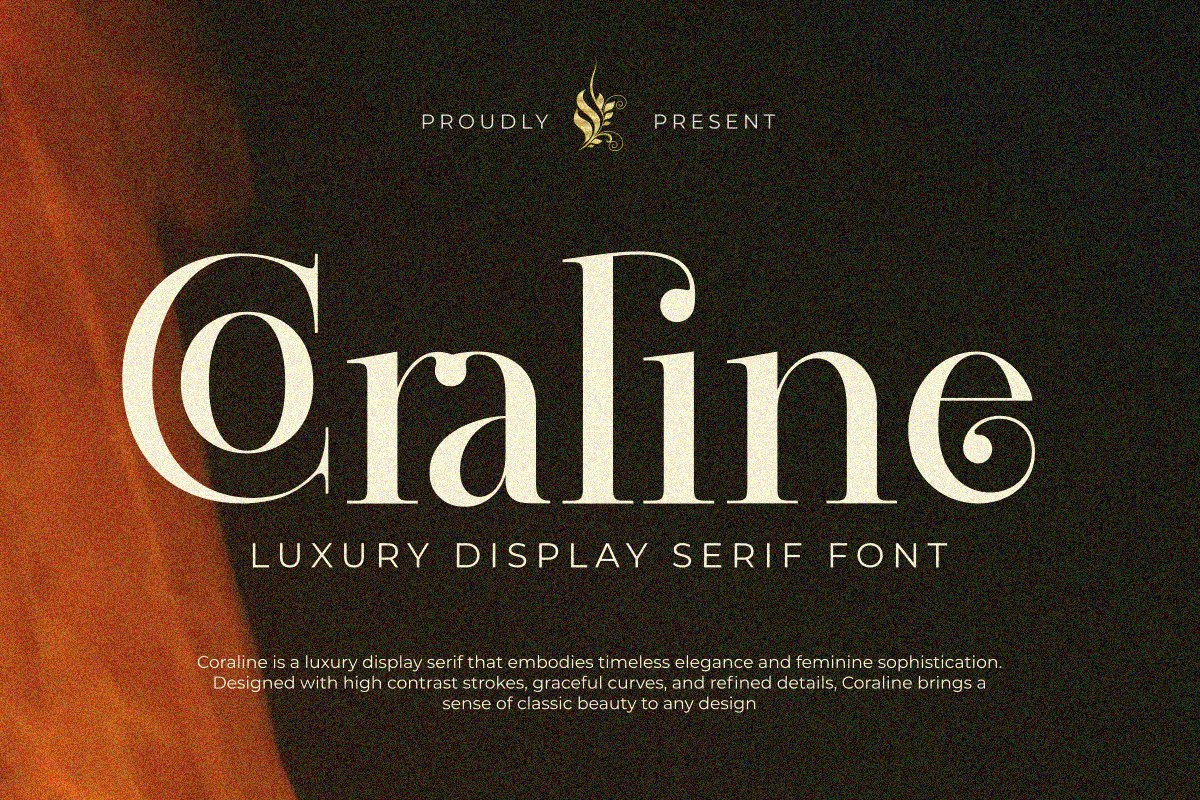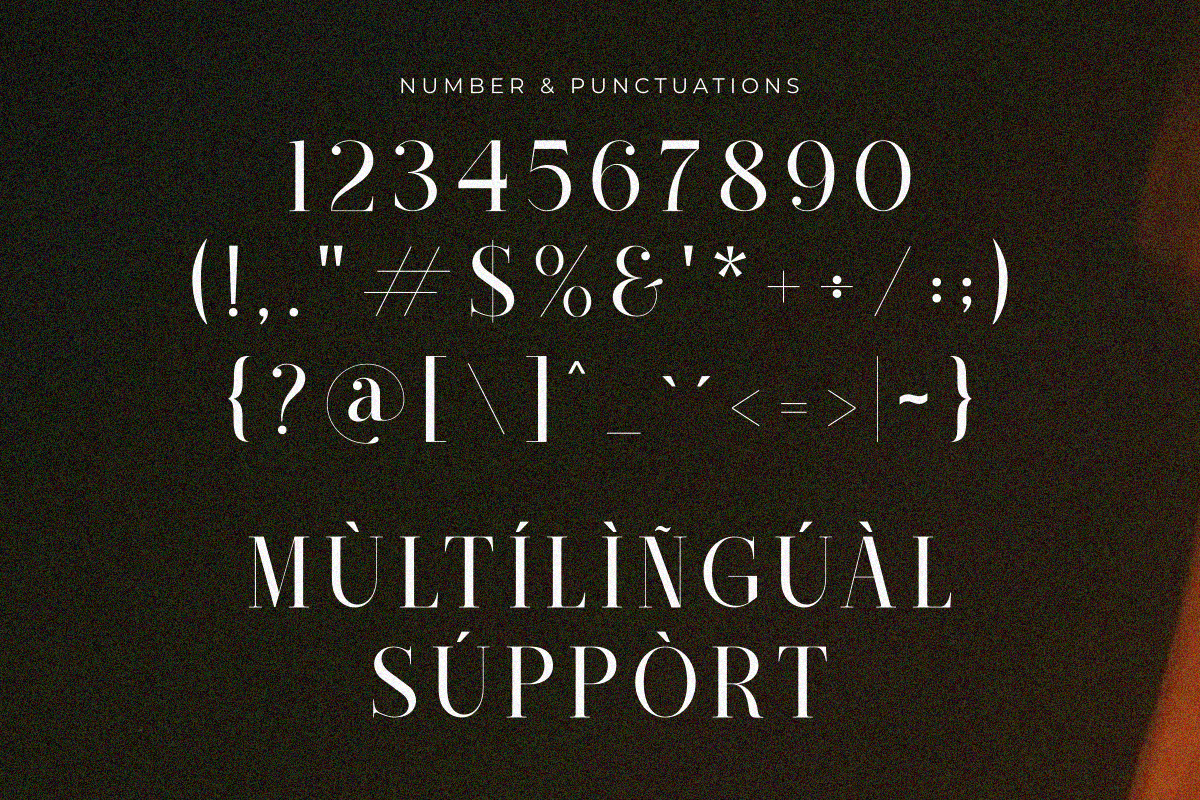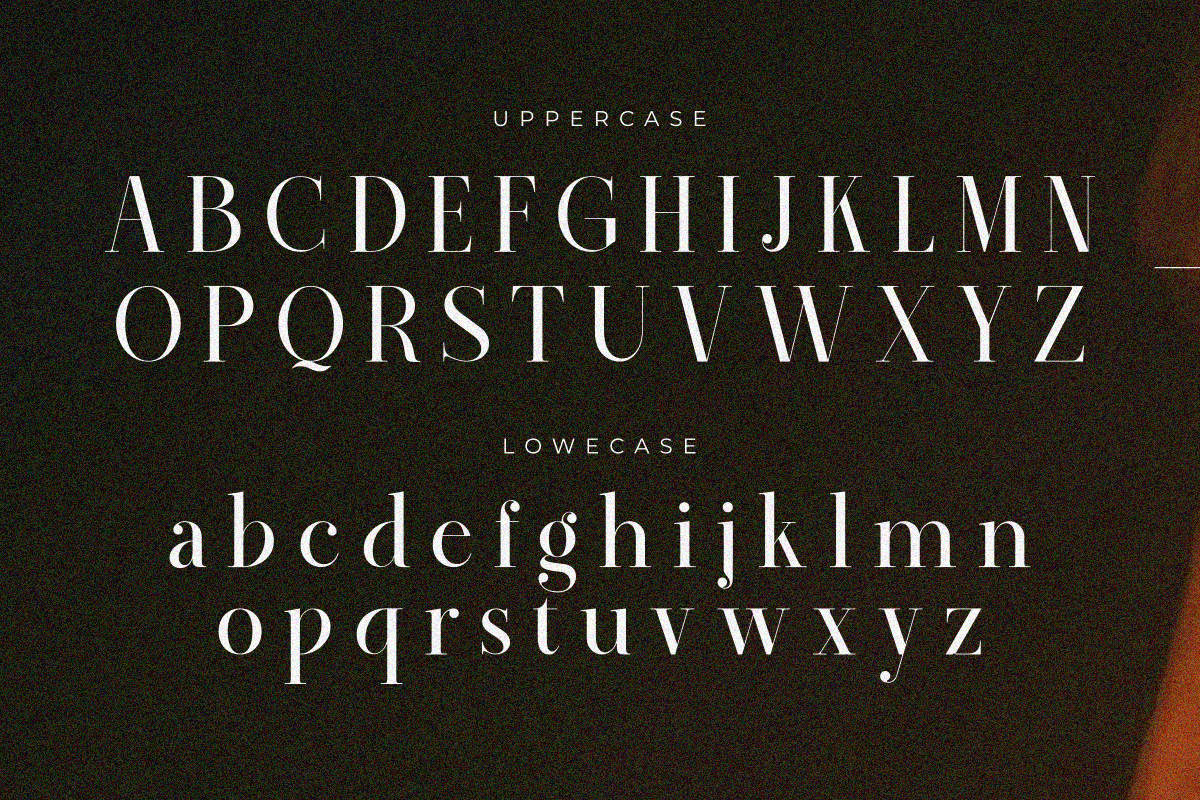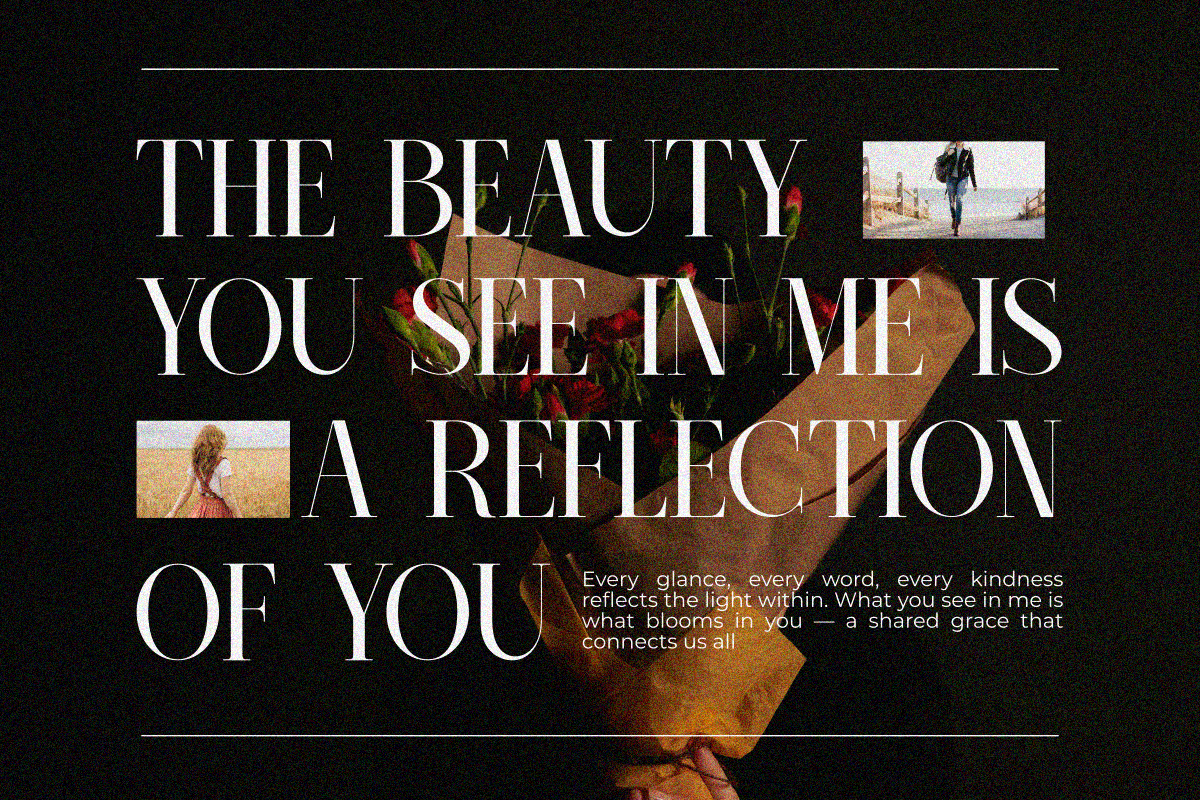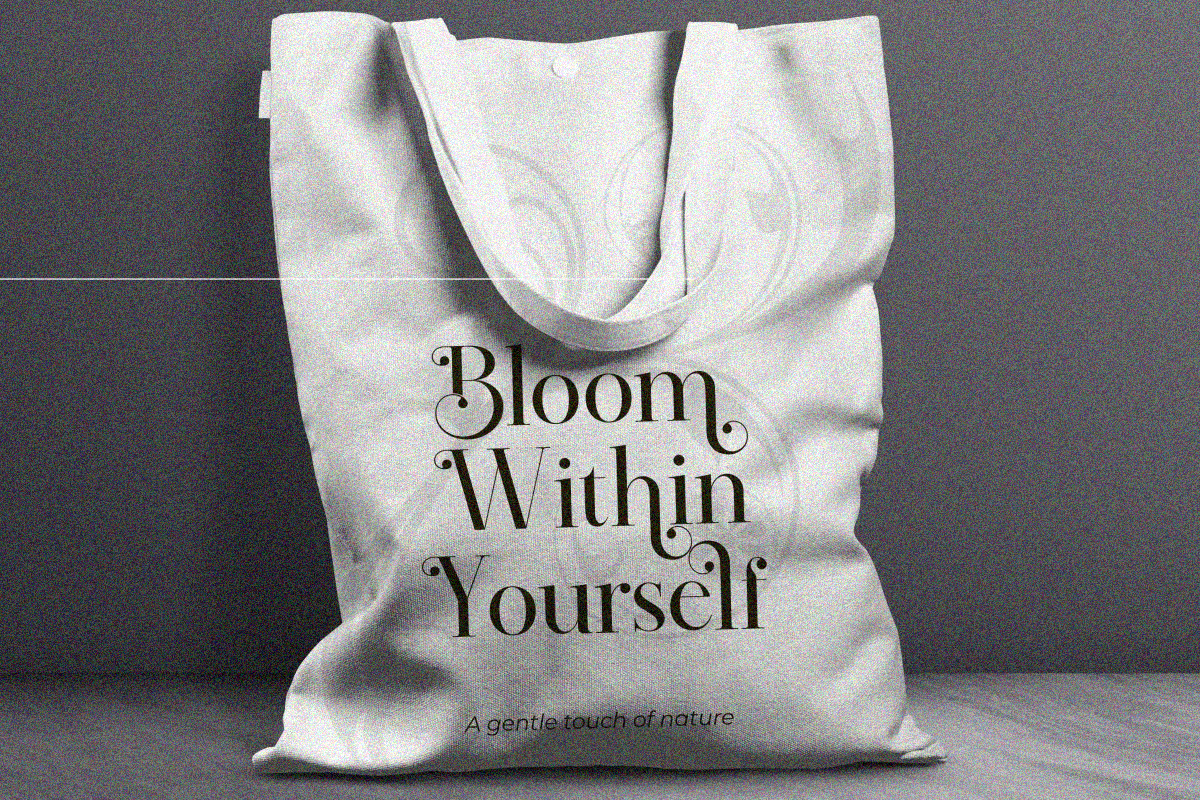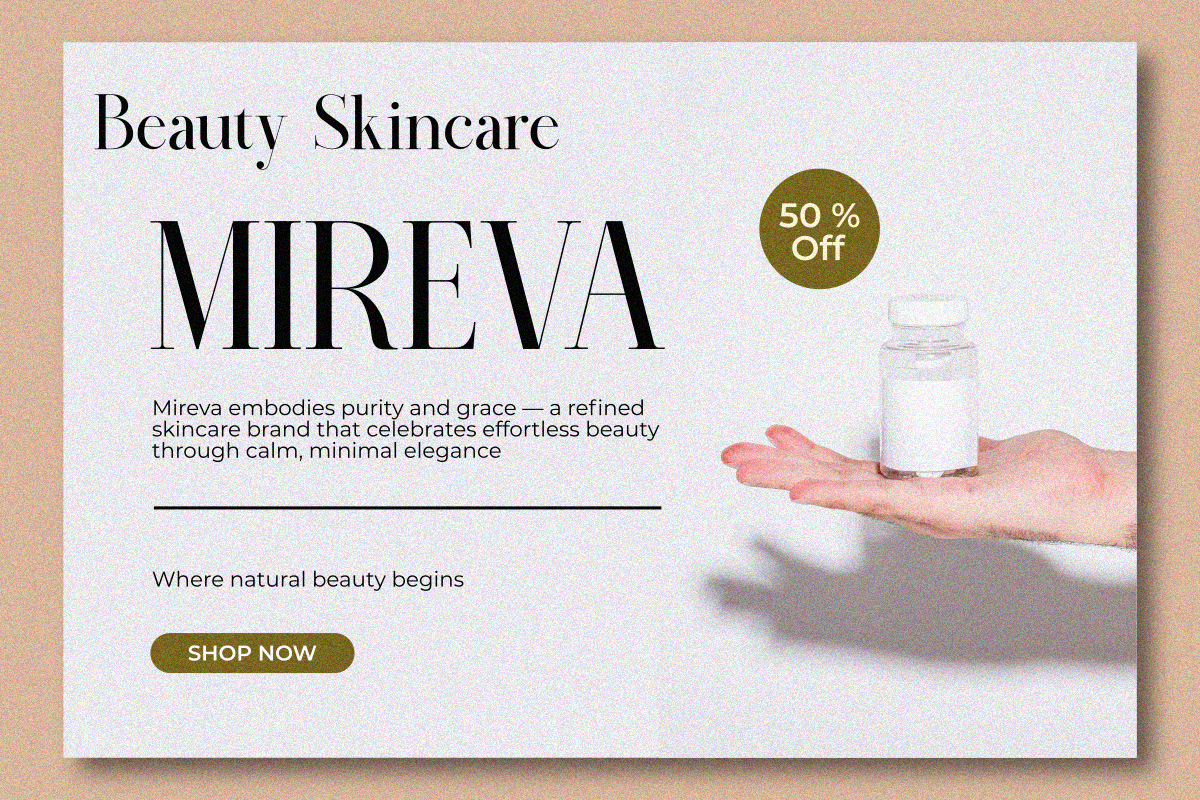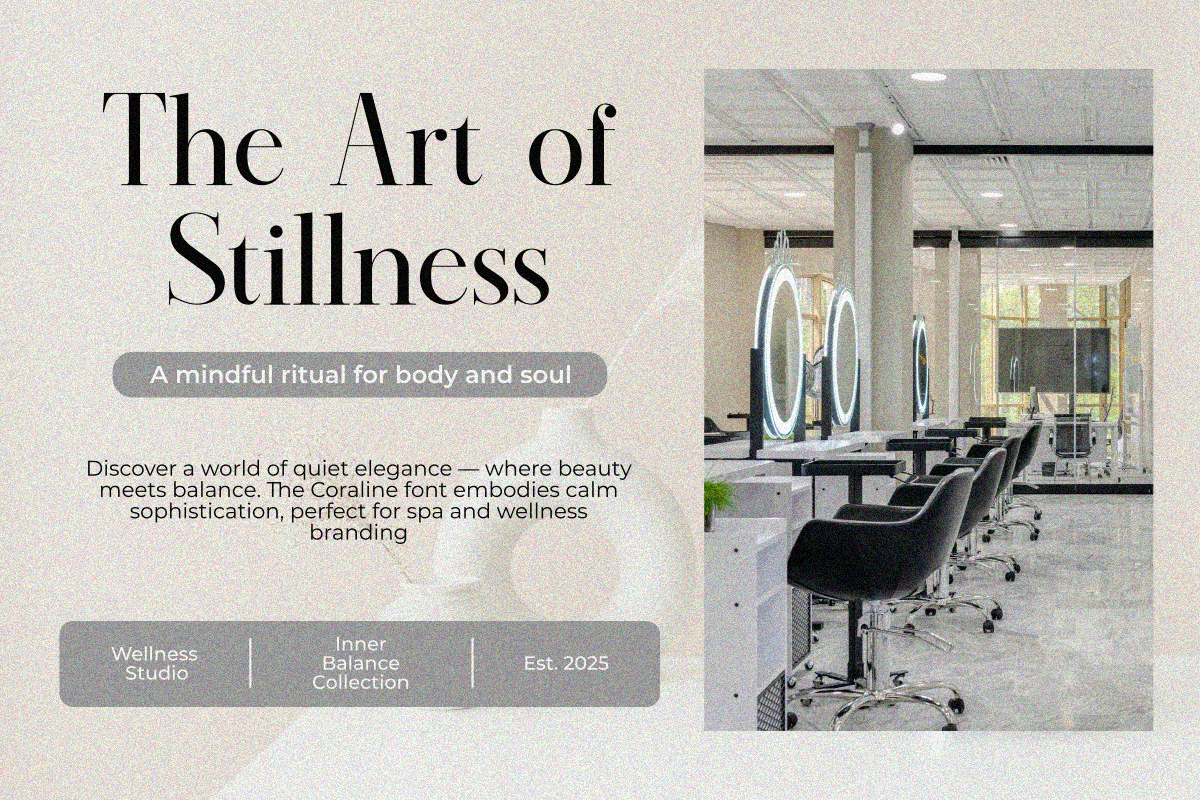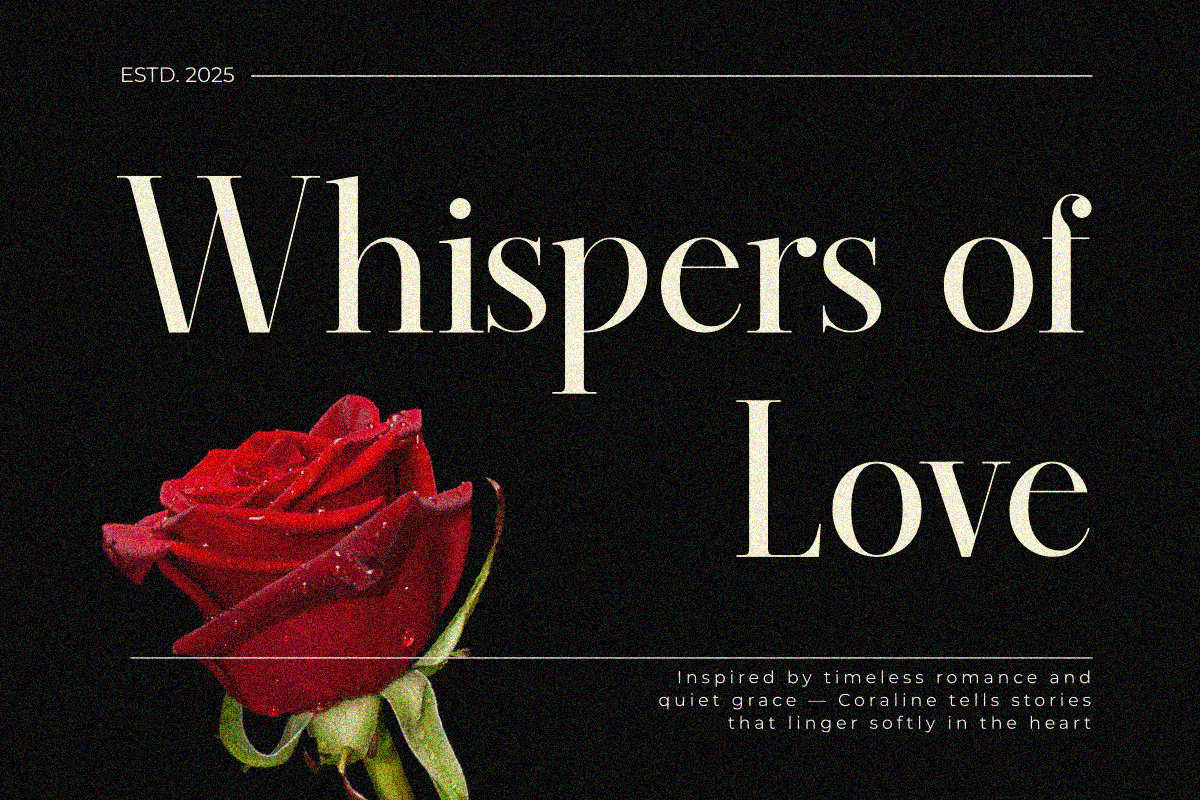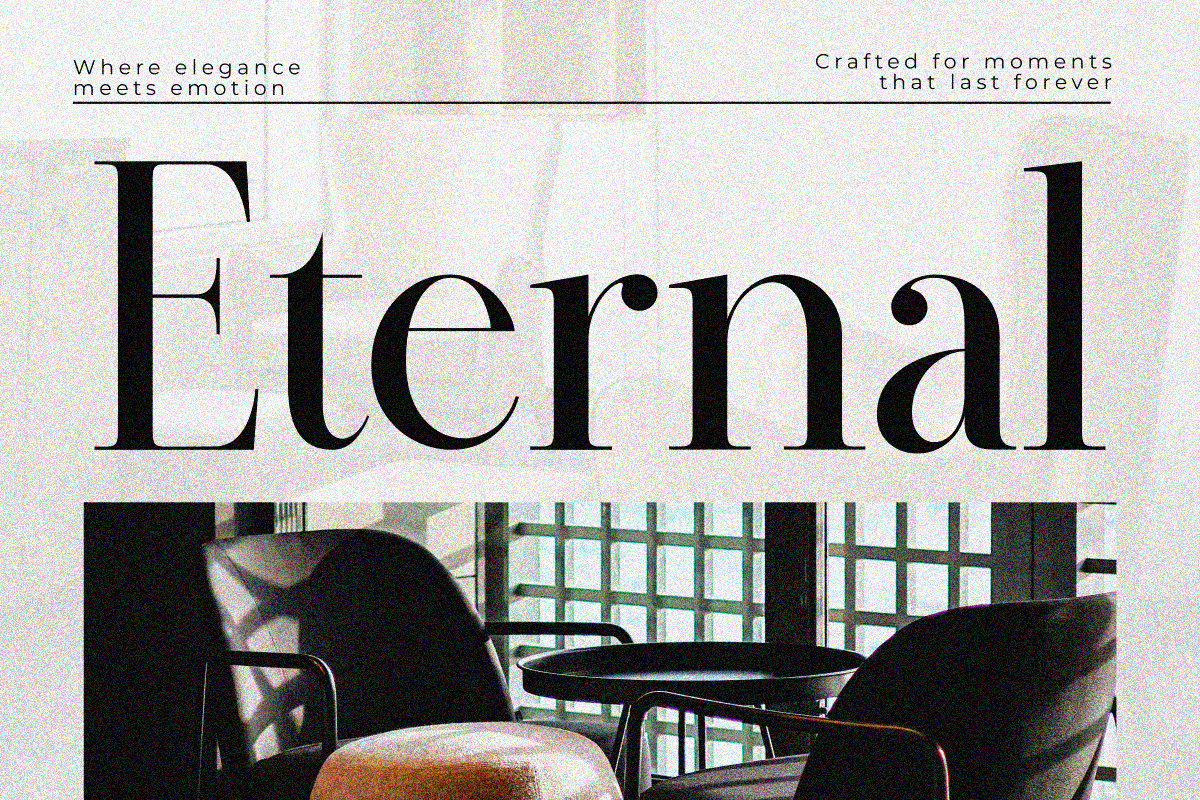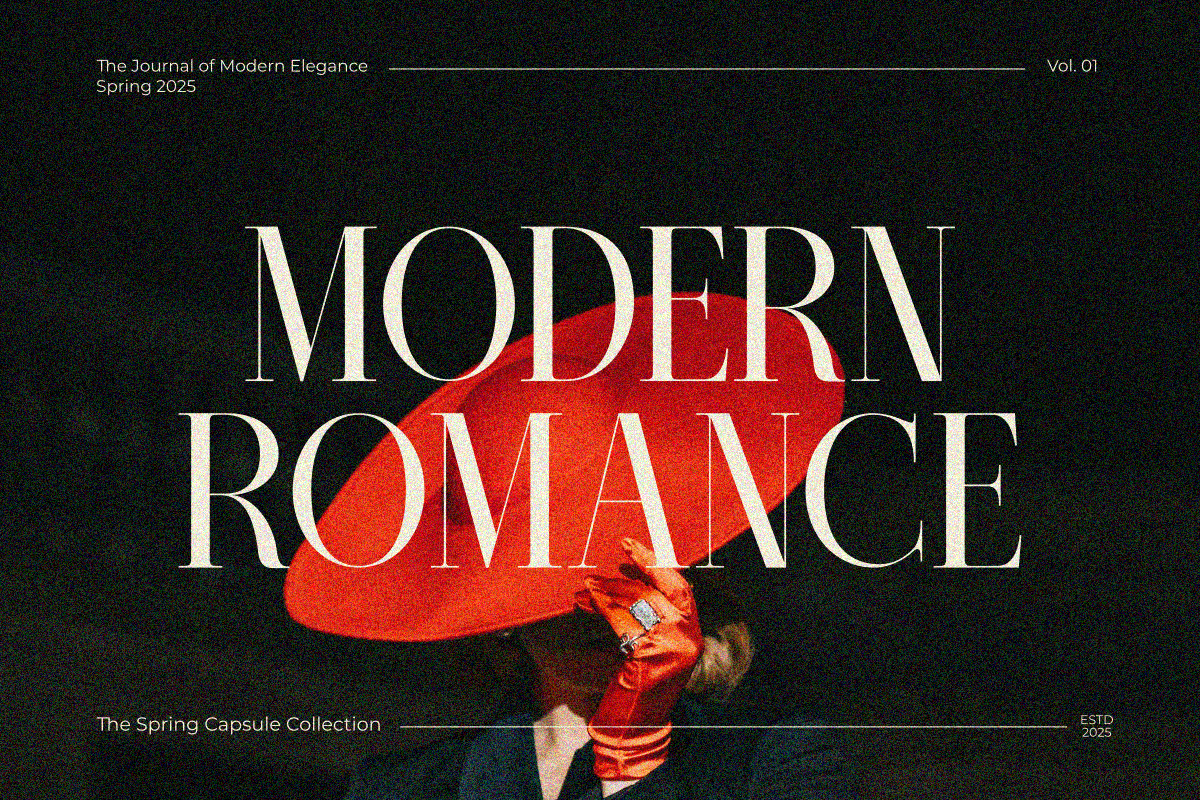
Coraline
Coraline is a luxury display serif that embodies timeless elegance and feminine sophistication. Designed with high-contrast strokes, graceful curves, and refined detailing, Coraline brings a sense of classic beauty to any visual composition. Perfect for branding, editorial layouts, and premium product design, it adds a soft yet confident presence that feels both contemporary and enduring.